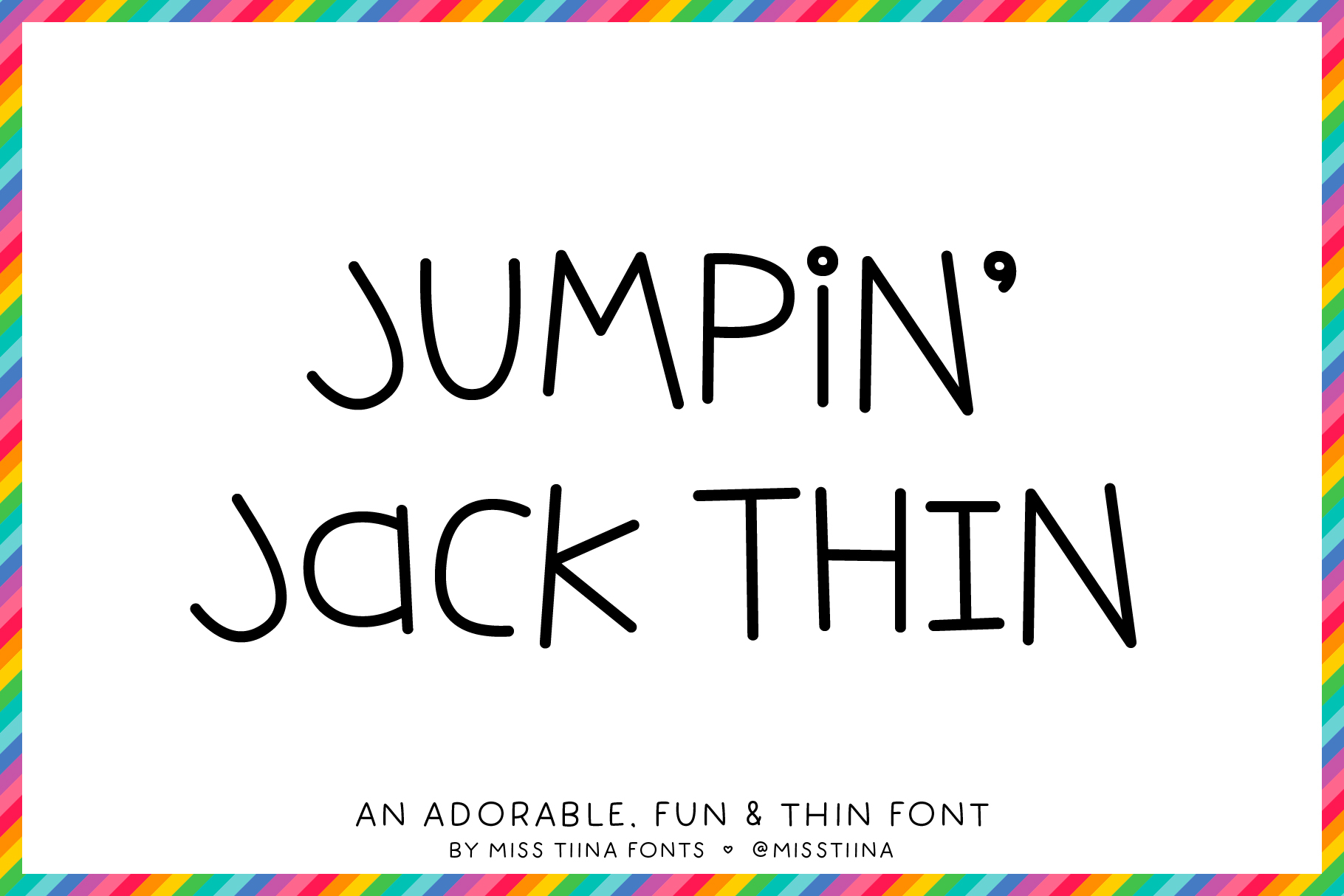
MTF Jumpin' Jack Thin
MTF Jumpin' Jack Thin is a hand drawn font family published by Miss Tiina Fonts .
This super popular teacher / classroom font now comes in monoline! It includes 100 alphabet characters in OTF and TTF formats - 26 A to Z uppercase letters, 26 a to z lowercase letters, 10 numbers 0-9, 2 symbols - heart and star, plus 36 punctuation marks. A bouncy fun font to add to your collection and it’s a perfect thin font to use in so many projects!